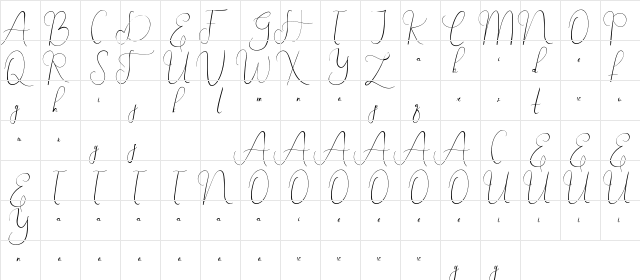
Crush On You Demo Brush Regular Font Preview
Crush On You Demo Brush Regular
Crush On You Demo Brush Regular Font Details
Design Context for Crush On You Demo Brush Typeface
Crush On You Demo Brush flows with the natural rhythm of handwritten lettering, making it ideal for designs that call for warmth and personal expression.
Font Pairing: Combine Crush On You Demo Brush with a simple geometric sans for maximum contrast — the tension between flowing curves and clean structure is a classic typographic pairing.
Pro Tip: Pair Crush On You Demo Brush with a clean sans-serif for supporting text. The contrast between fluid script and geometric structure creates an elegant typographic hierarchy.